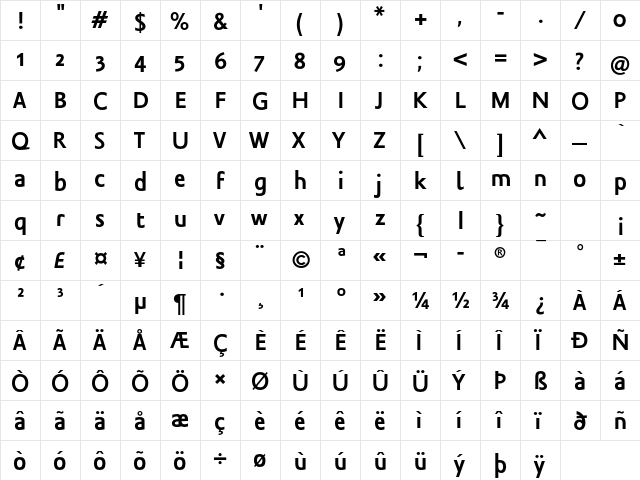
Legal LT Std Bold Font Preview
Legal LT Std Bold
Legal LT Std Bold Font Details
| Foundry | Linotype GmbH |
| Designer | Hellmut G. Bomm |
Design Context for Legal LT Std Typeface
Legal LT Std takes a measured approach to typography — its balanced proportions and neutral character make it a reliable workhorse for both digital and print work. Its bold stroke weight gives it real presence on the page.